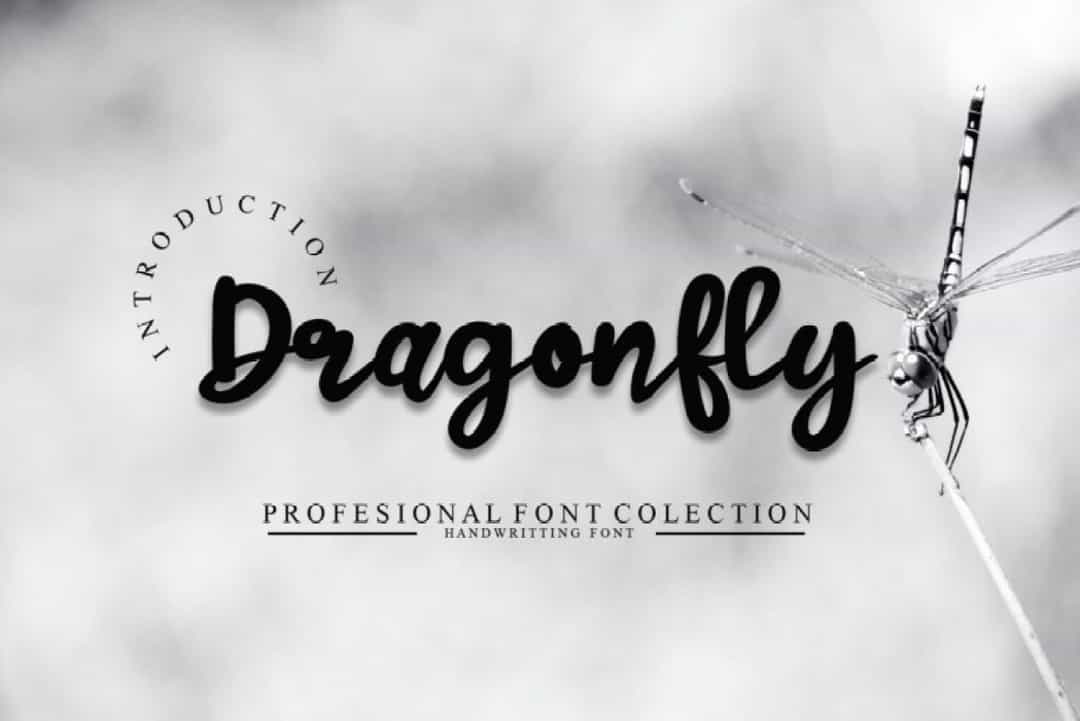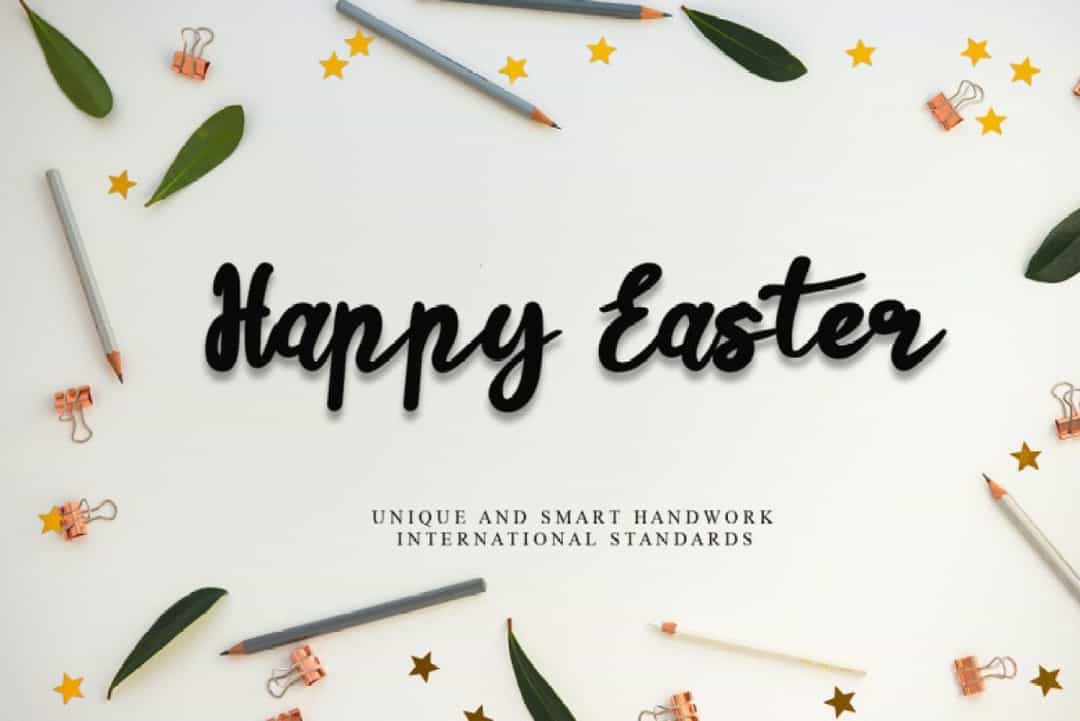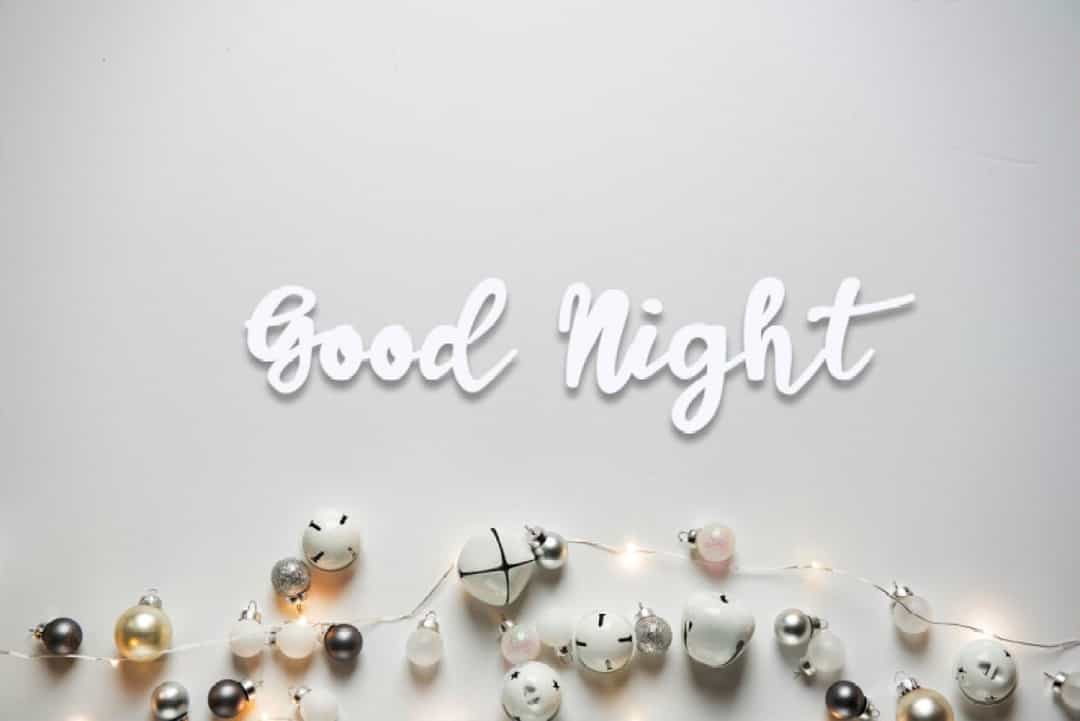
Discover Dragonfly Font, part of the Calligraphy Handwritten collection—a versatile and unique font perfect for adding a personal touch to your projects. Download it for free and enjoy crafting designs with style, from invitations to social media posts. This font is available exclusively for personal use, giving you the freedom to create without limits. Unlock your creativity with Dragonfly Font today!
Dragonfly Bold Handwritten Font is our new release that has been created with your needs in mind and brings an elegant touch with the help of strong accents and curves in each letter. You will definitely find yourself in love with it.